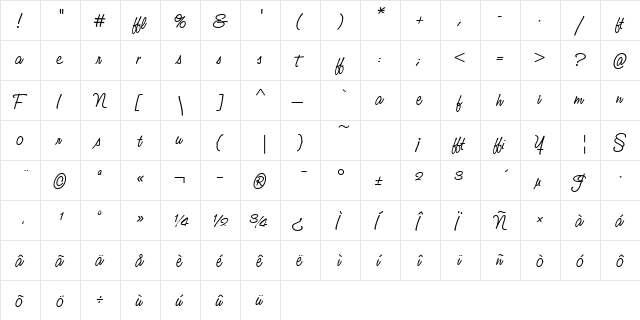
StudioScriptAlternativeNo2ITC Italic
Design Context for StudioScriptAlternativeNo2ITC Typeface
StudioScriptAlternativeNo2ITC brings a calligraphic fluidity to the page — its connecting strokes and expressive curves give it an unmistakably human quality.
Font Pairing: Combine StudioScriptAlternativeNo2ITC with a simple geometric sans for maximum contrast — the tension between flowing curves and clean structure is a classic typographic pairing.
Pro Tip: Pair StudioScriptAlternativeNo2ITC with a clean sans-serif for supporting text. The contrast between fluid script and geometric structure creates an elegant typographic hierarchy.